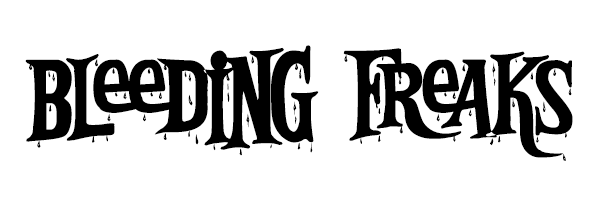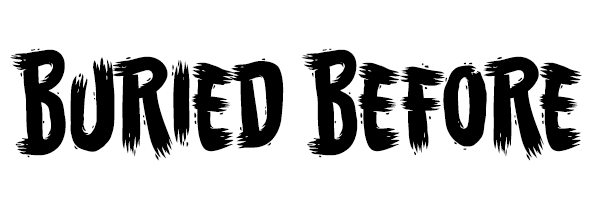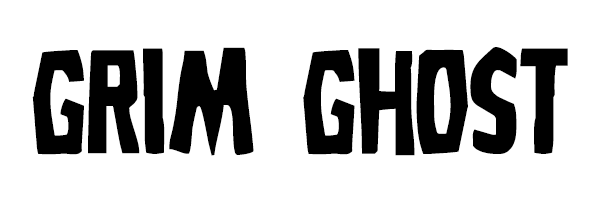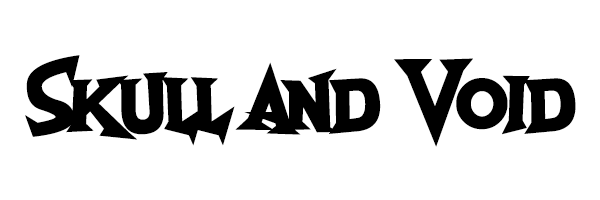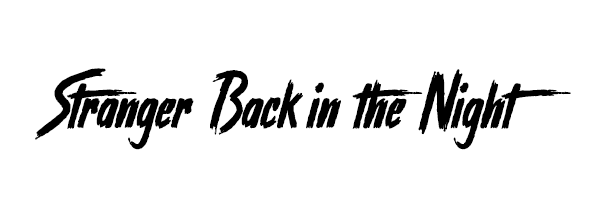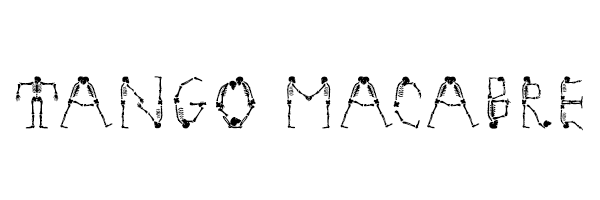
Top 10 Free Horror Fonts
Good, free horror fonts can be hard to come by.
Whether using for seasonal-themed print collateral or in spooky email campaigns, having some awesome horror fonts at the ready can help inspire your inner ghoul (and result in a great final product!). Let’s do Halloween and all of the other spooky occasions right by having great fonts.
After all, this will be aesthetically pleasing to your target audience. I’ve compiled ten of my favorites, along with links to download each for free to try them out for yourself.
Feast of Flesh
Curse of the Zombie: I absolutely love how this font gives off the vibe of a character in a film being cursed.
Buried Before
Stranger Back in the Night
Ghoulish Fright: This is probably my favorite one out of all of them!
Blood of Dracula
Skull and Void
Tango Macabre
Bleeding Freaks
Grim Ghost